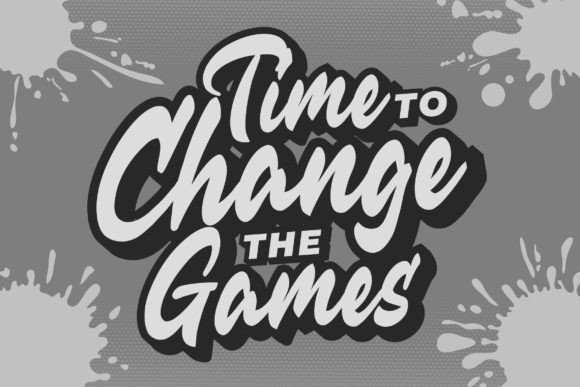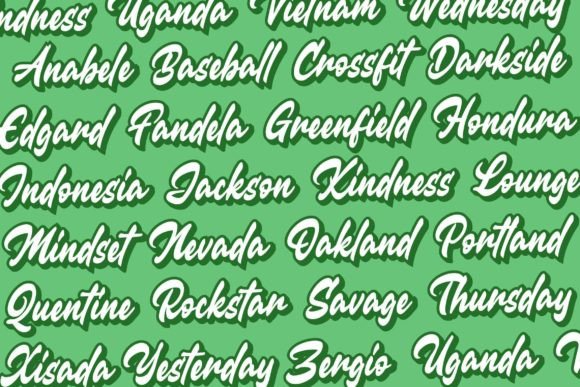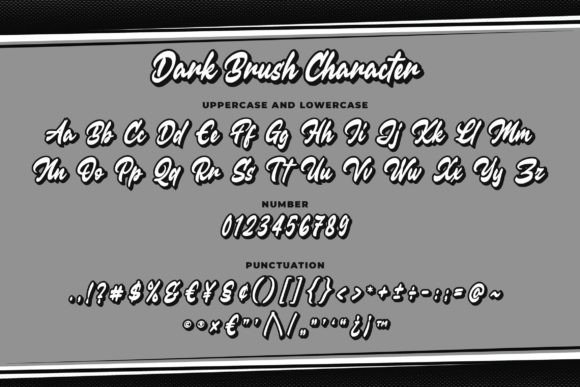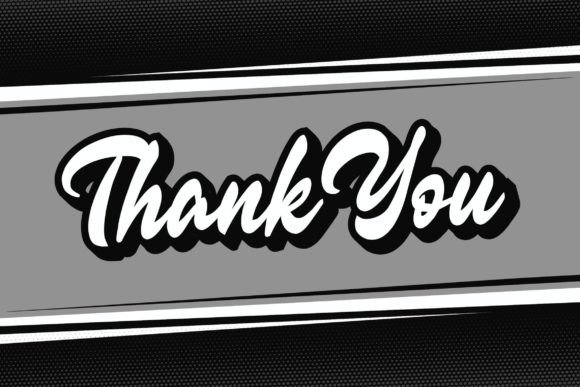
Dark Brush Font
Are you looking for a clean brush script font? Do you want to create something that stands out and inspires creativity, imagination, and endless fun? Wait no more, here is the best choice.
Dark brush a Clean Brush Fon inspired by brush lettering-style typography. This font is perfect for a design that makes it more attractive and playful. It was made with a very good level of aesthetics, making this font suitable for a book cover, poster, packaging, merchandise, logotype, and much more.